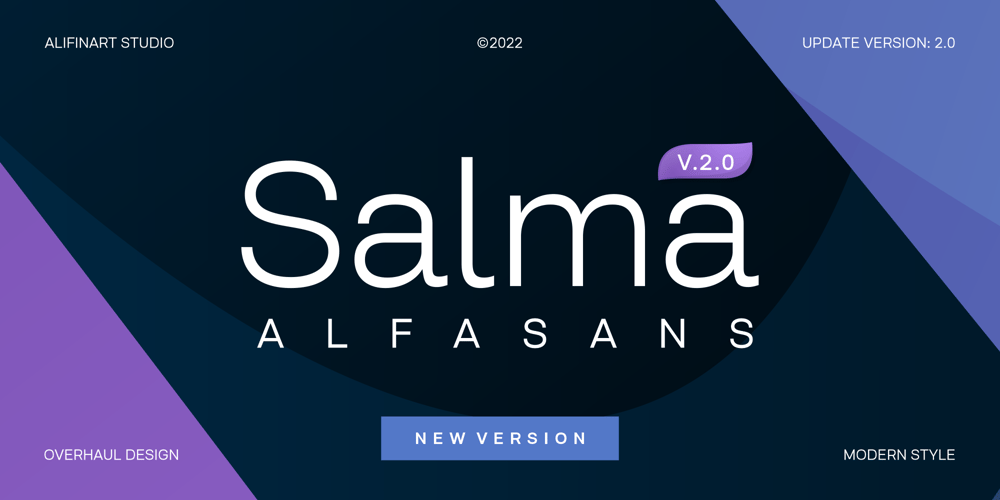
Salma Alfasans
Salma Alfasans font
Salma Alfasans Font Family was designed by Alif Nuryasin and published by Alifinart Studio. Salma Alfasans contains 18 styles and family package options. Salma Alfasans is a modern sans serif font, created on February 25, 2021. The main inspiration for this font is its modern geometry and bold design, but looks elegant and smooth.This font is well-crafted and has almost no contrast at all. The advantage of the Salma Alfasans font is that it is very appropriate when used as a heading, but also looks good when used as body text. With many weight options, you can freely adjust the design scenario based on your needs.Salma Alfasans is very good for logos, branding, books (headings, sub headings, and body text), invitations, business cards and others.SALMA ALFASANS UPDATE VERSION 2.0Update Details:- New designs and mayor changes- Tabular and proportional lining figures- Tabular and proportional oldstyle figures- Stylistic set for a, l, y, and G- Numerator, denominator, and fractions- New ligatures for ff, fi, fj, ft, fk, ffk, and more- Case sensitive, and- ArrowsLanguage Support: Afrikaans, Albanian, Asu, Basque, Bemba, Bena, Breton, Catalan, Chiga, Cornish, Danish, Dutch, English, Estonian, Filipino, Finnish, French, Friulian, Galician, German, Gusii, Indonesian, Irish, Italian, Kabuverdianu, Kalenjin, Kinyarwanda, Luo, Luxembourgish, Luyia, Machame, Makhuwa-Meetto, , Makonde, Malagasy, Manx, Morisyen, North Ndebele, Norwegian Bokmål, Norwegian Nynorsk, Nyankole, Oromo, Portuguese, Quechua, Romansh, Rombo, Rundi, Rwa, Samburu, Sango, Sangu, Scottish Gaelic, Sena, Shambala, Shona, Soga, Somali, Spanish, Swahili, Swedish, Swiss German, Taita, Teso, Uzbek (Latin), Volapük, Vunjo, Zulu.Thank you.Alifinart Studioalifinart@gmail.comInstagram | Behance